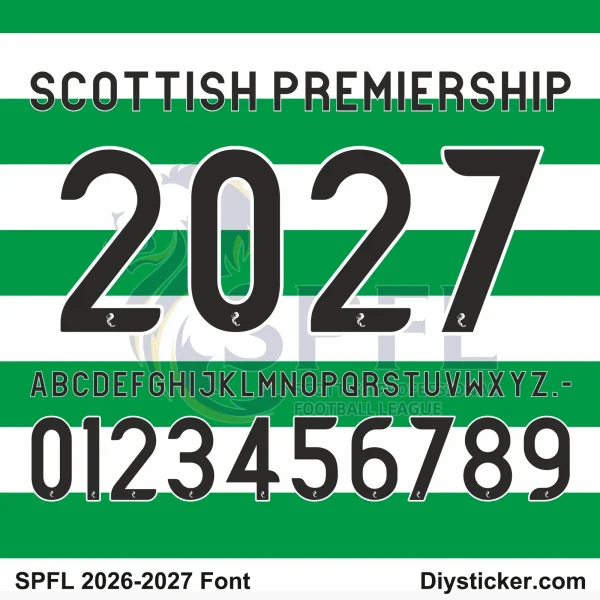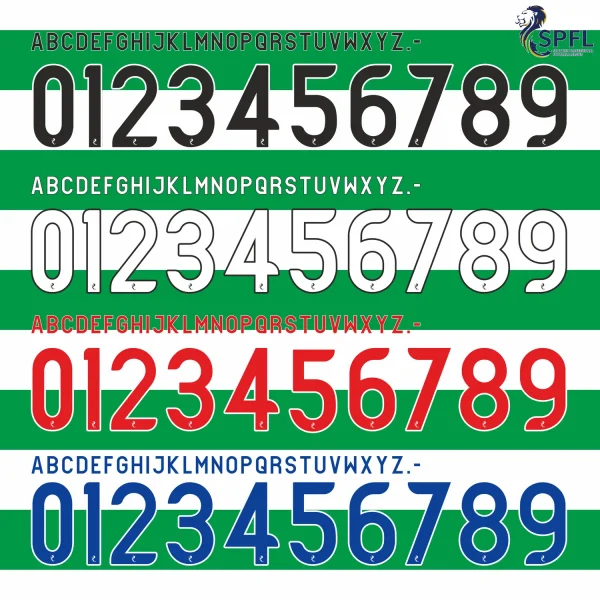
Get ready for the new season with the SPFL 2026-2027 Jersey Font. This complete typography pack is meticulously designed to match the official style worn by Scottish Premiership clubs. Whether you are a graphic designer, a sports apparel printer, or a die-hard football fan, this kit provides everything you need for high-fidelity reproduction.
Complete Set: Contains all uppercase letters (A-Z) and numbers (0-9) as seen on the 2026-2027 kits.
Versatile Colors: Design includes black, white, red, and blue variations to match home, away, and third kits.
Elevate your sports design projects with the authentic look of Scottish football.